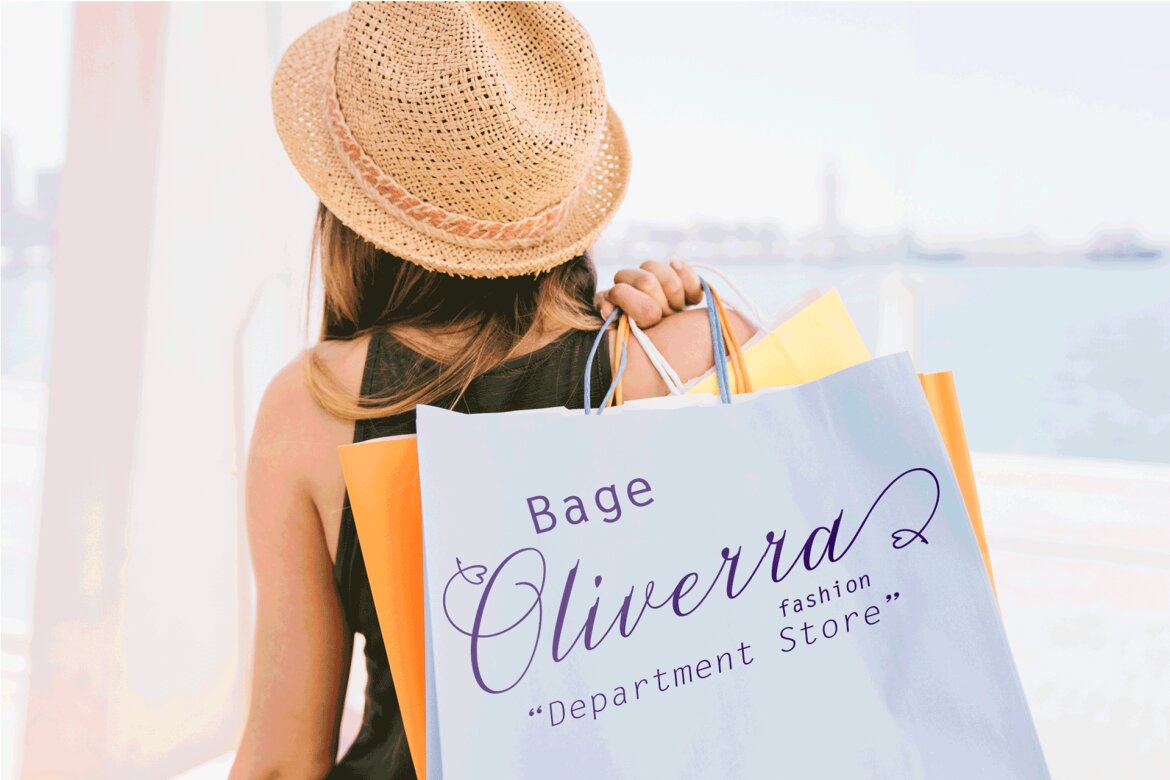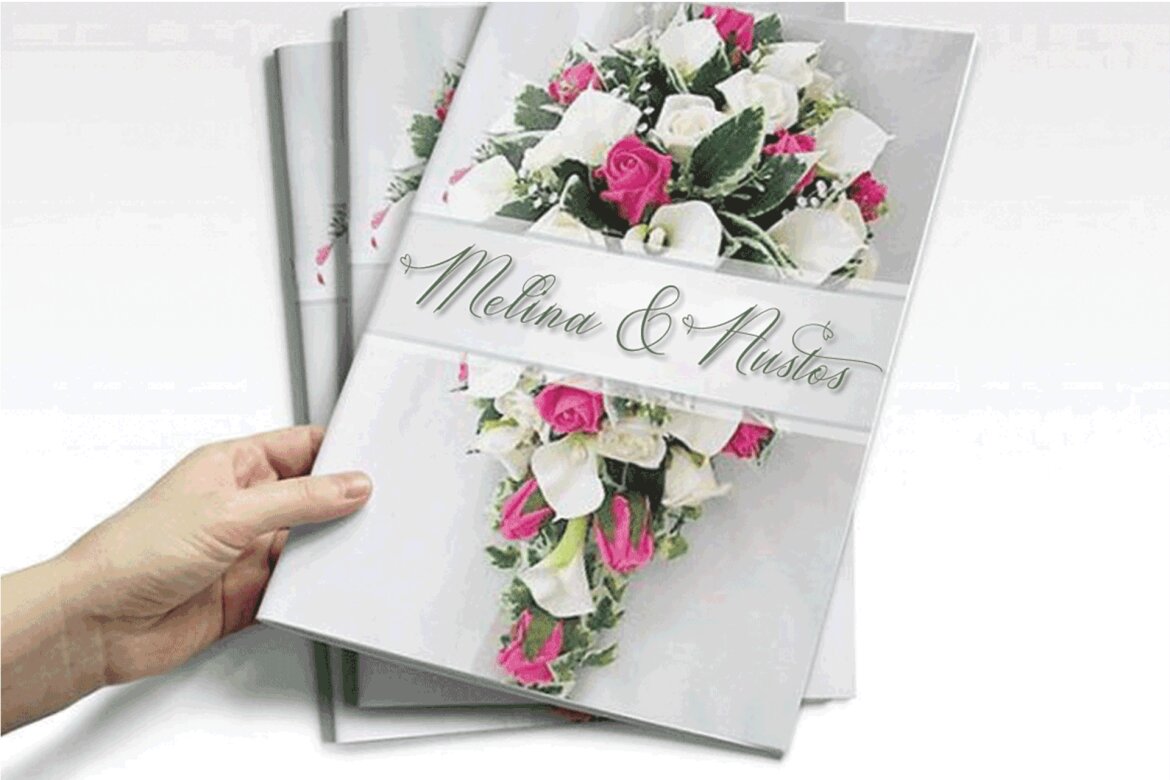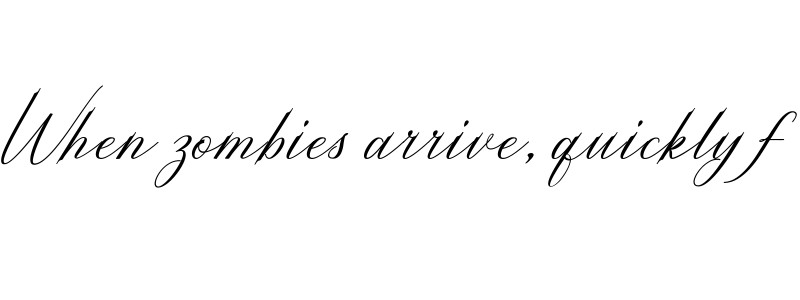
Despacito FREE Script Font
Despacito
Despacito is another lovely modern calligraphy typefaces, which is combining the style of classic calligraphy with an modern style. combines from copperplate to contemporary typeface with a dancing baseline, modern and elegant touch. including initial and terminal letters, alternates, ligatures and multiple language support..
The Features of this fonts is;
Standart ligatures Stylistic Alternates Stylistic sets PUA Unicode (Private Use Areas) File font Matthew Include ;
Languages supported: Breton, Catalan, Czech, Danish, Estonian,French, German, Hungarian, Icelandic, Italian, Romanian, Scottish Gaelic, Slovak, Latvian, Lithuanian, Norwegian, English, Finnish, Polish, Portuguese, Slovenian, Spanish, Swedish, Turkish, Welsh. Basically, all european languages that are based on latin alphabet
Can be used for various purposes.such as headings, logos, wedding invitation, t-shirt, letterhead, signage, lable, news, posters, badges etc. To enable the OpenType Stylistic alternates, you need a program that supports OpenType features such as Adobe Illustrator CS, Adobe Indesign & CorelDraw X6-X7
• basic latin a-z and a-z
• pua encode